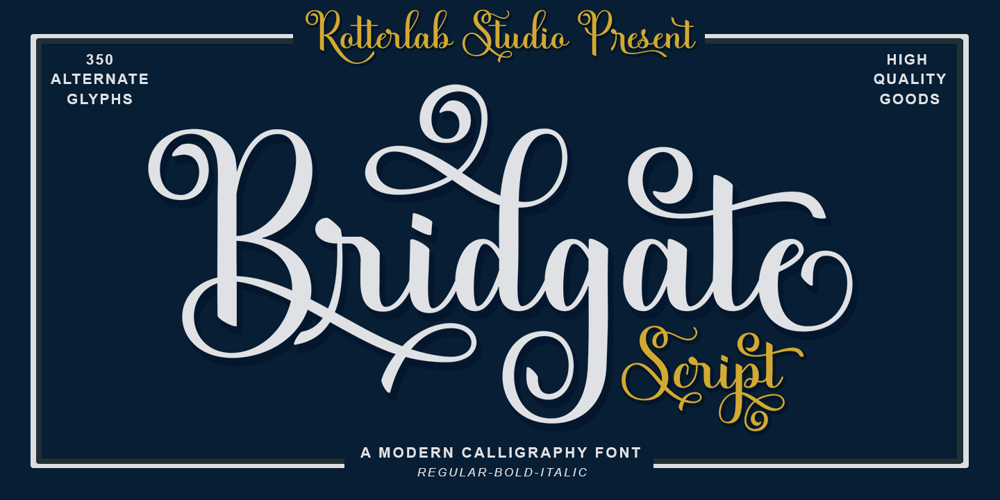
Bridgate Script
Bridgate Script font
Bridgate Script Font Family was designed by Sidiq Fahmi and published by Rotterlab Studio. Bridgate Script contains 3 styles and family package options. Kimberly Script is a contemporary calligraphic typeface, a mixture of retro script. get a classic and elegant touch. Can be used for various purposes.such as logos, wedding invitations, t-shirts, letterheads, signage, labels, news, posters, badges etc. Kimberly Script features 583+ glyphs and 350 alternate characters, ligatures, swash and multiple language support. To enable the OpenType Stylistic alternates, you need a program that supports OpenType features such as Adobe Illustrator CS, Adobe Indesign & CorelDraw X6-X7, Microsoft Word 2010 or later versions. There are additional ways to access alternates/swashes, using Character Map (Windows), Nexus Font (Windows), Font Book (Mac) or a software program such as PopChar (for Windows and Mac).How to access all alternative characters, using Windows Character Map with Photoshop: https://www.youtube.com/watch?v=Go9vacoYmBwFiles include:Kimberly Script.OTFKimberly Script Bold.OTFKimberly Script Italic.OTFIf you need help or advice, please contact me by e-mailThank you